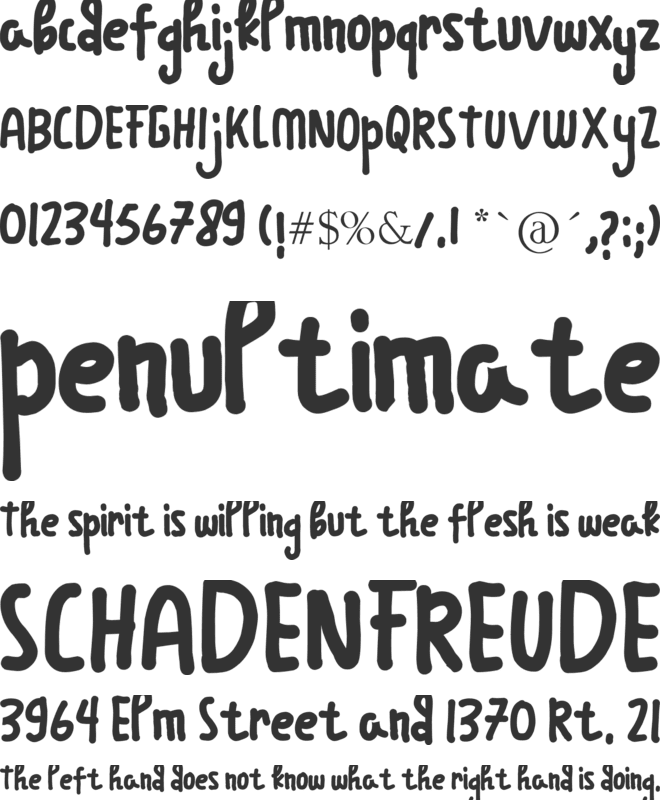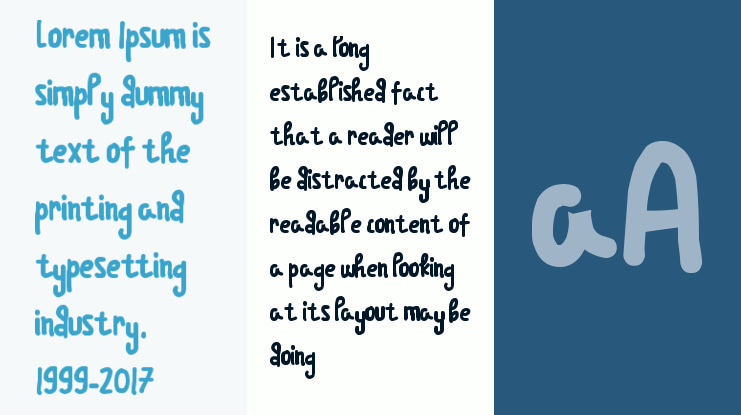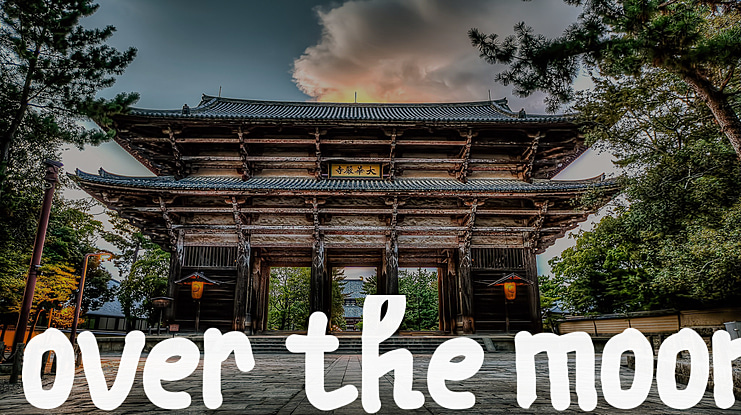
over the moon Font
hi guys, this time I want to represent my personal project that is over the moon sanserif font, this font is very suitable to be applied in making attractive advertisement display and happy genre bar, for children's magazines, writing food diaries, and representing the hepi atmosphere.donation for comersial use